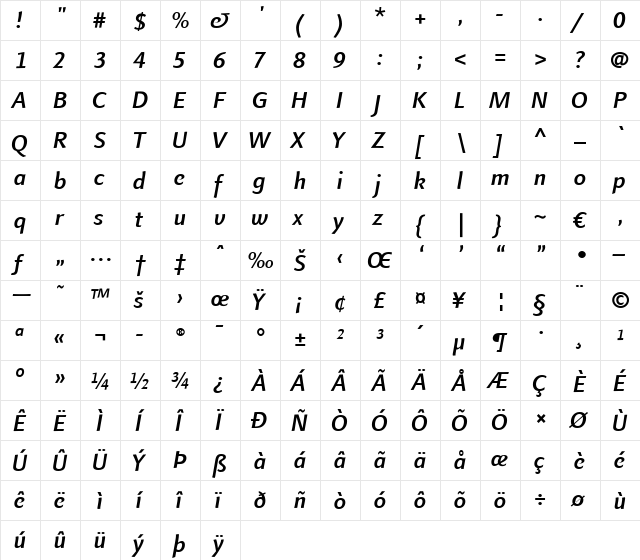
LTFinnegan Medium Italic
| Designer | Juergen Weltin |
Design Context for LTFinnegan Medium Typeface
LTFinnegan Medium is a composed and adaptable typeface that performs quietly and consistently across a wide range of design contexts. The dynamic lean of this cut emphasises speed and emphasis in any layout.
Pro Tip: Try LTFinnegan Medium for annotation and caption copy alongside an upright companion — the contrast in angle creates a dynamic but ordered typographic system.